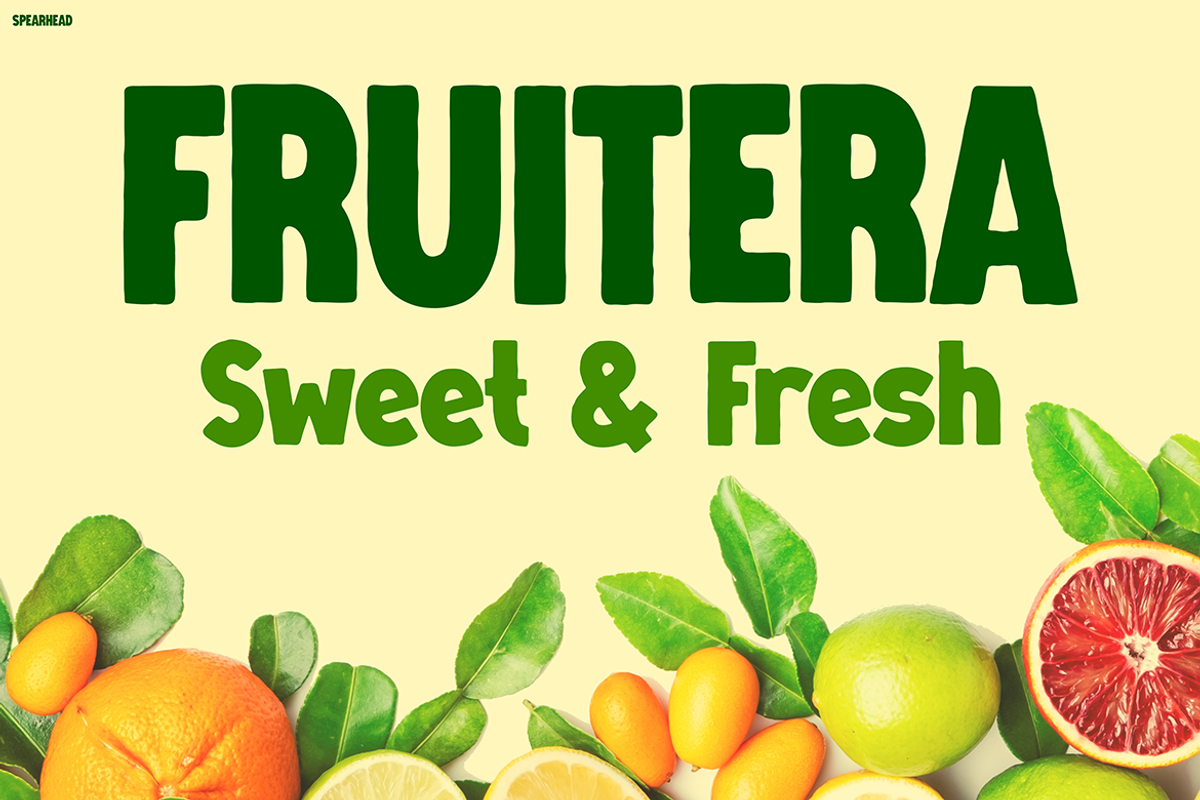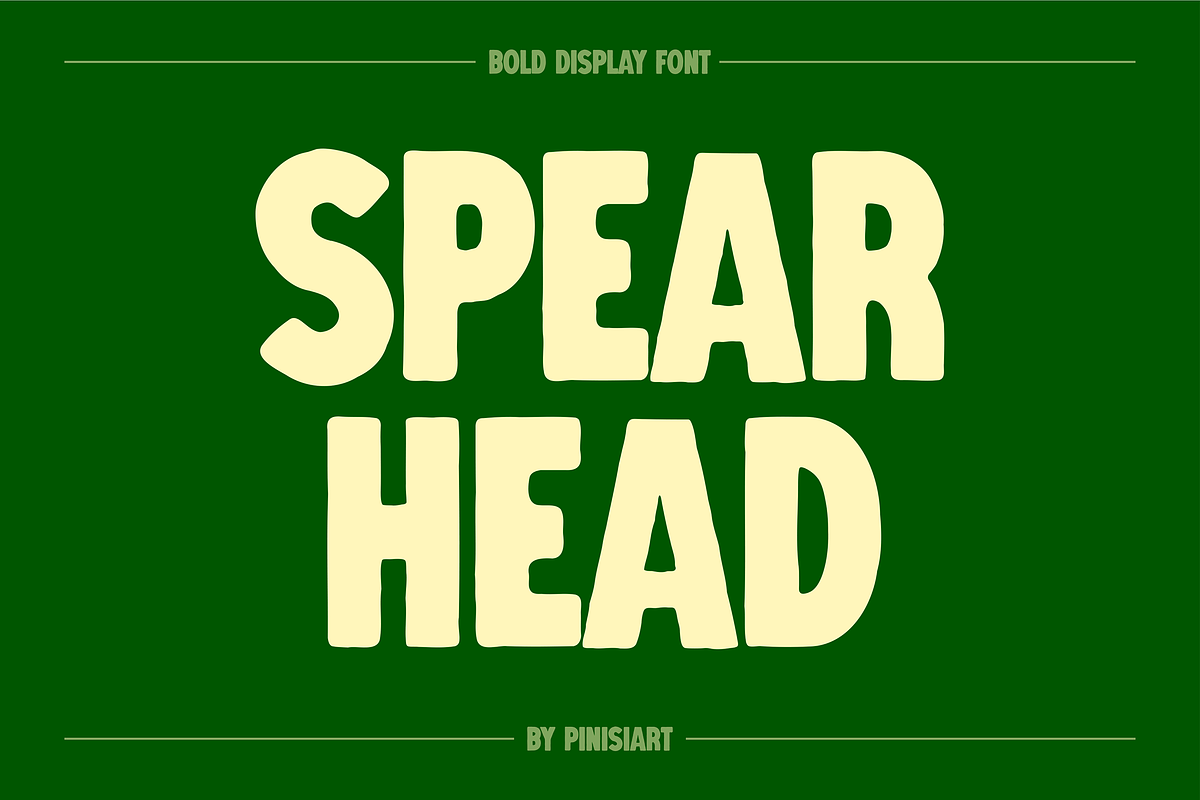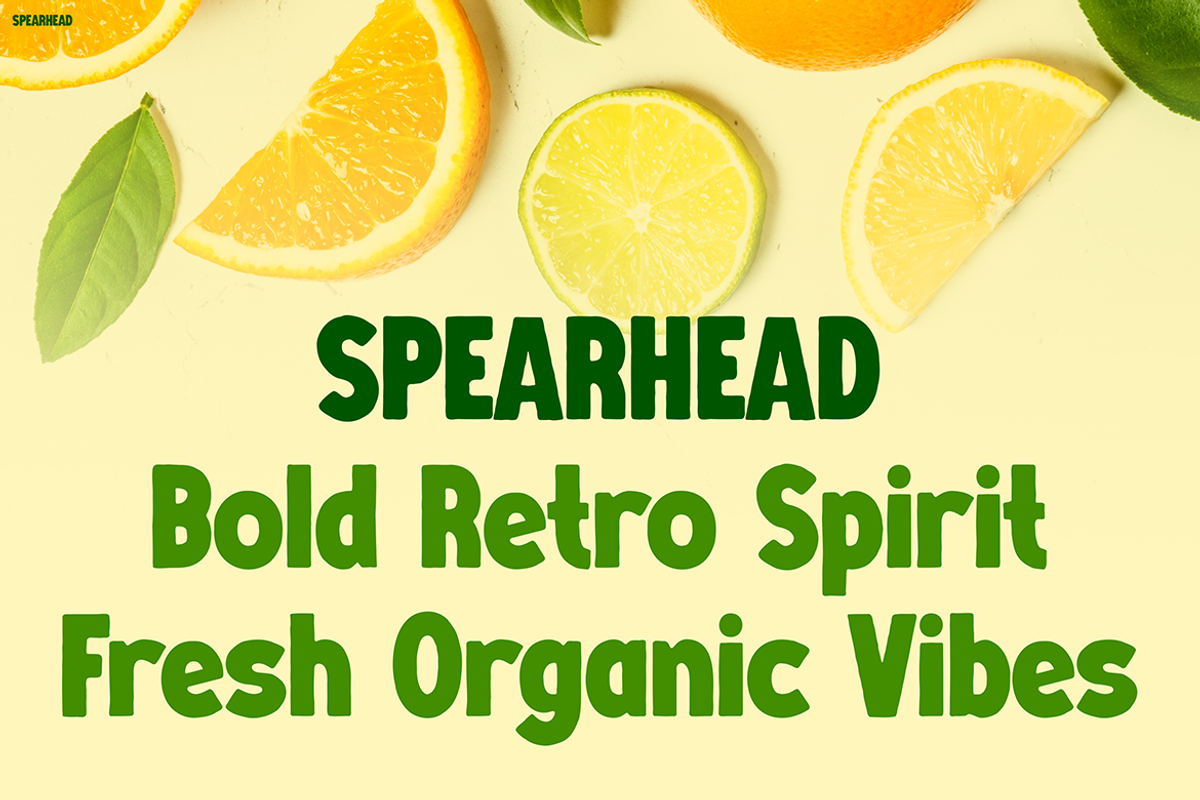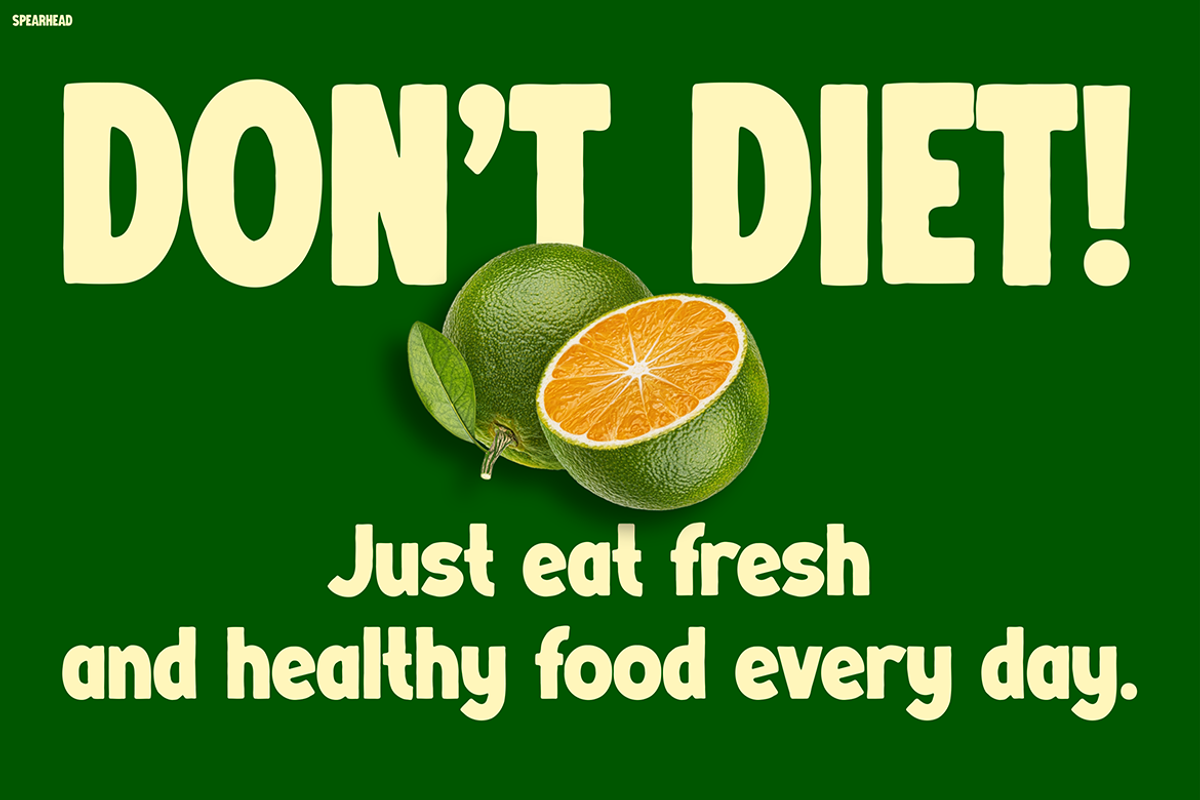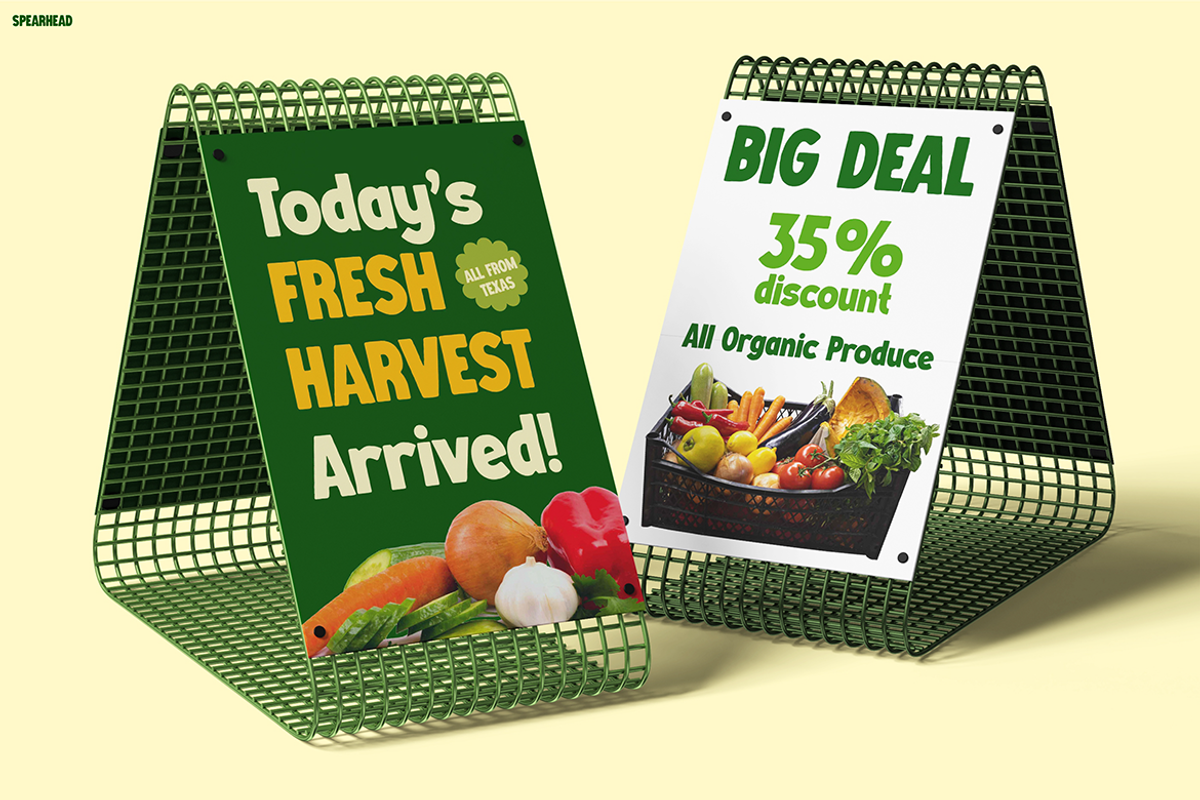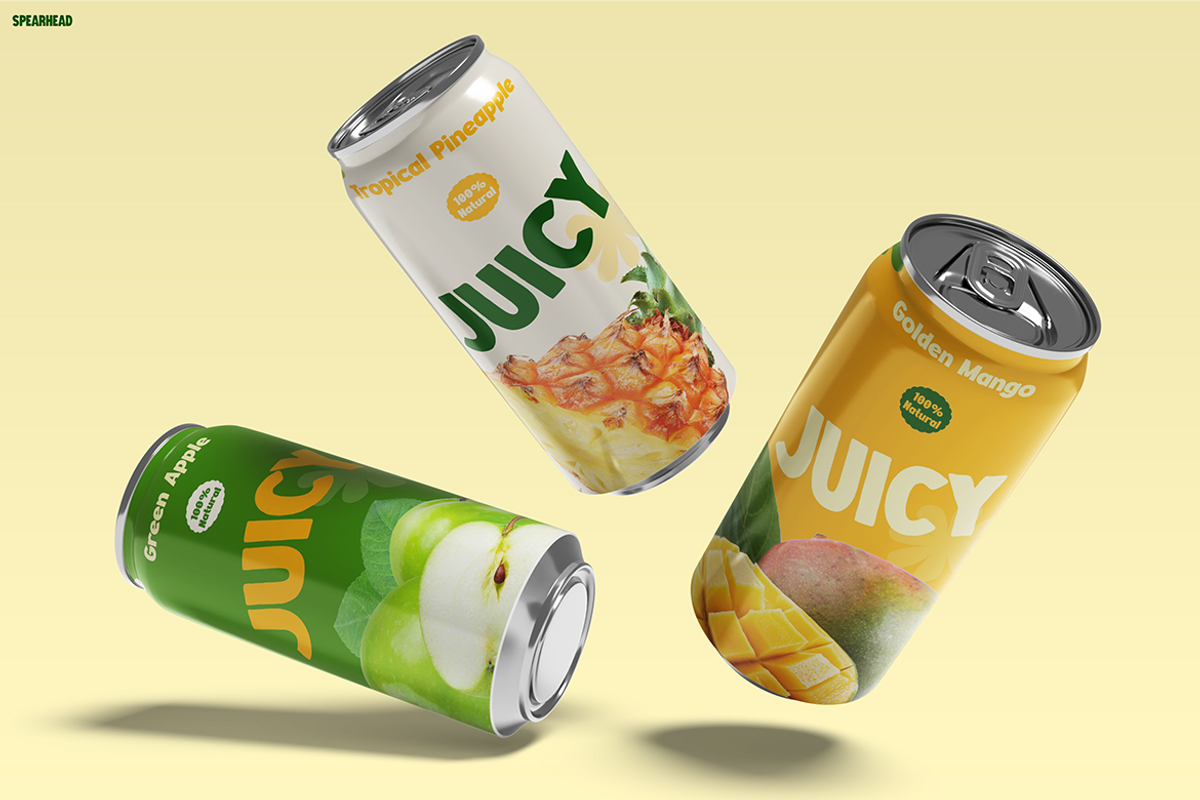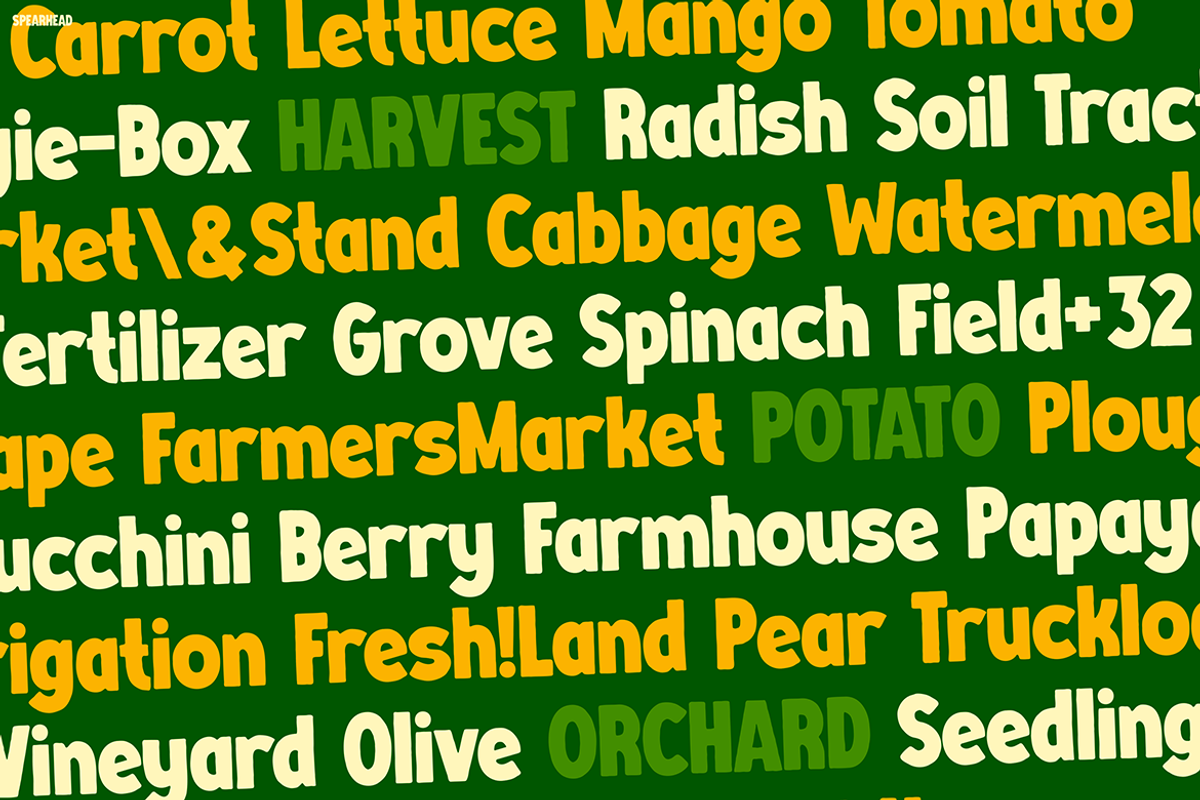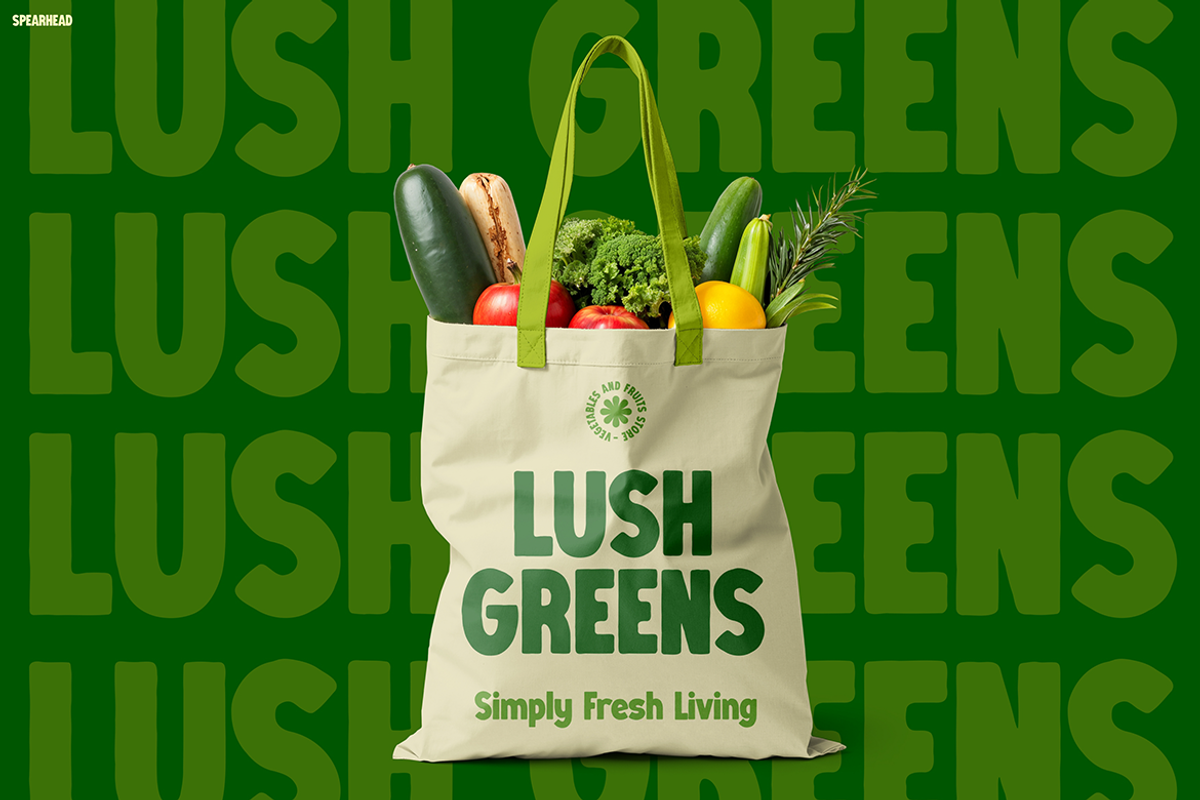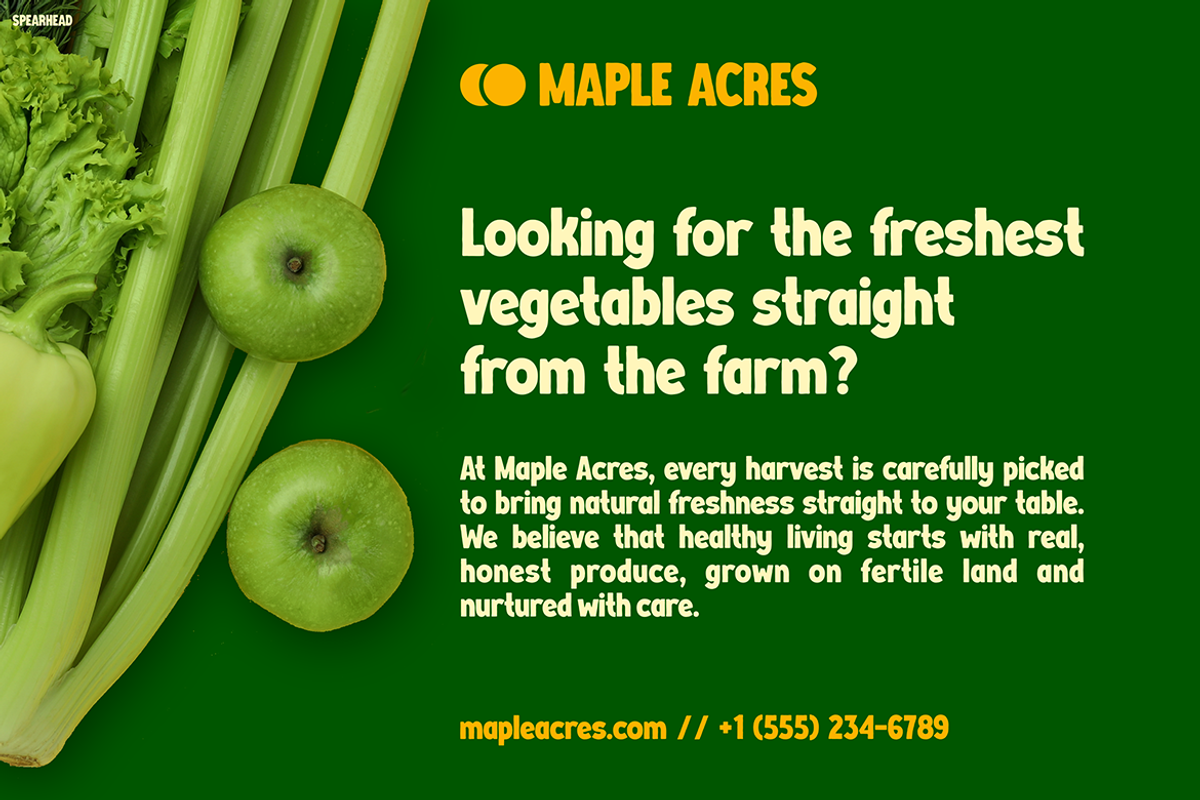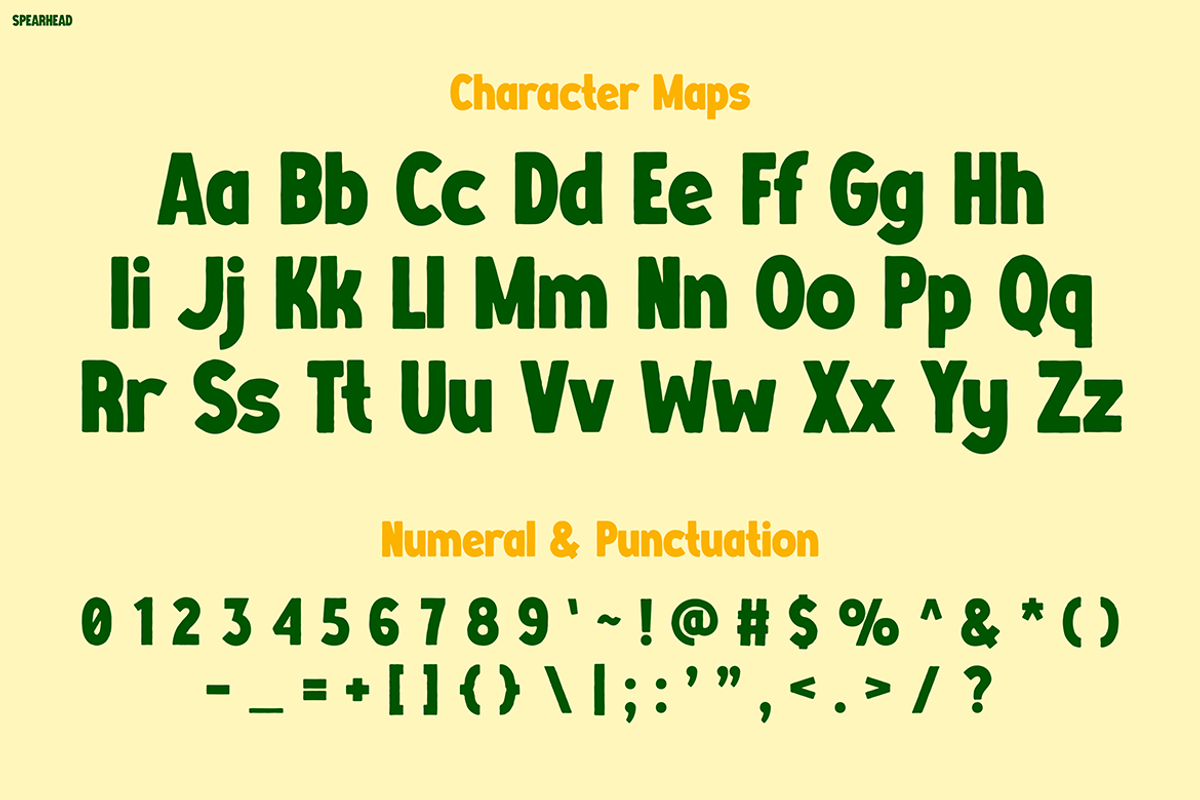
SPEARHEAD
Retro Font SPEARHEAD – Bold, Fresh, and Full of Character
Retro Font SPEARHEAD is more than just typography – it’s a vibrant design tool built to capture attention instantly. With its bold strokes, organic letterforms, and retro-inspired aesthetic, this font bridges the gap between nostalgic vibes and modern branding. The playful yet structured look makes every word pop with confidence, while still keeping a friendly, approachable tone. Its versatility shines through in the way it brings energy to product packaging, posters, advertisements, and lifestyle branding. Whether you’re working on food labels, eco-friendly campaigns, or bold social media graphics, Retro Font SPEARHEAD delivers a unique visual punch that feels both retro and refreshingly new.